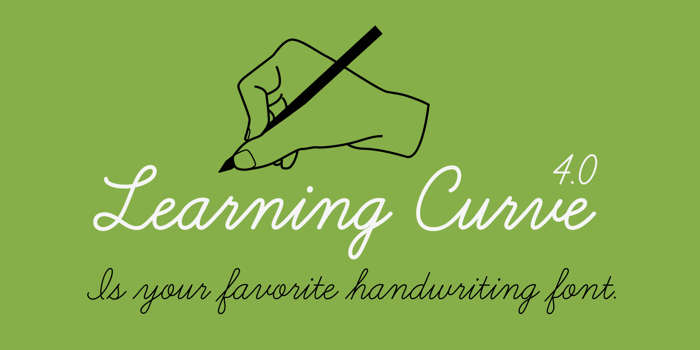
Learning Curve BV Font
If you've read the headlines, you know that the majority of schools are no longer teaching cursive writing. Now more than ever the world is in need of Learning Curve! It's the font that can improve your handwriting and it's also just a cute cursive font.
Learning Curve mimics traditional cursive handwriting worksheets, but with a modern style that I developed from my handwriting.
In the latest version, you will find a lot of new features. First, the Learning Curve family finally has a bold style! Language support was increased to include Central European. Some characters were redrawn to give them a little more finesse. The dashed version was completely redrawn to eliminate the overlapping dashes. Lastly, a dingbat was created to house the guidelines and drills. Learning Curve has never looked better!
This is terrific, not only for learning cursive writing, but to help those who want to improve and learn better penmanship. Beautiful writing!
We love this! A caution if used for practice in the classroom. We found for the Southern California Riverside School District, these capital letters are different: K, H, B
This will be a great tool for teaching:-)